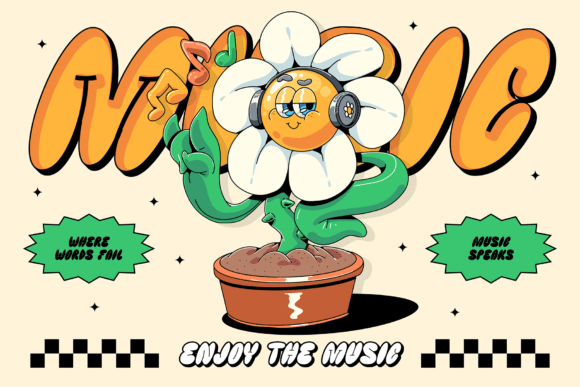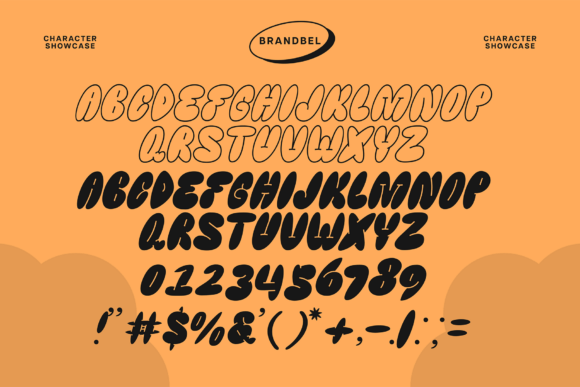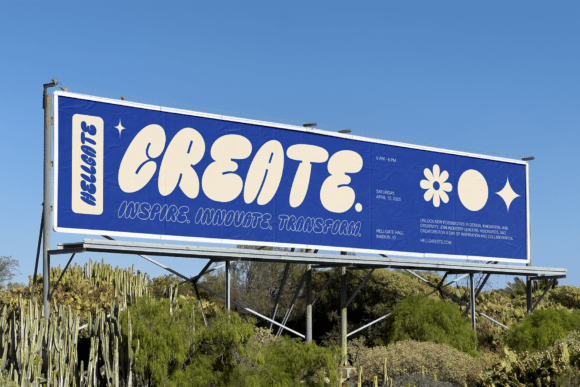
Introducing Brandbel Font: Add a Splash of Fun to Your Designs
Are you tired of using the same old fonts in your designs? Do you want to add a playful touch that sets your work apart? Look no further than the Brandbel Bubble Typeface! This vibrant and buoyant font is designed to inject a playful charm into any design, making it perfect for crafters, designers, and anyone looking to add some whimsy to their projects.
The Power of Playfulness: Why Brandbel Bubble Typeface Stands Out
Brandbel Bubble font is more than just a font – it’s an experience. Its bubbly personality can turn any text into a visual treat, making it perfect for designs that require a carefree and jovial aesthetic. Whether you’re working on a children’s book, a party invitation, or a social media post, Brandbel Bubble Typeface is sure to bring a smile to your audience’s face.
Effortless Customization: Make it Your Own
One of the best things about Brandbel Bubble Typeface is how easy it is to amend in terms of text and color. With just a few clicks, you can change the text to fit your needs and adjust the color to match your brand’s palette. This font is designed to be flexible and versatile, making it perfect for a wide range of design projects.
High-Quality Render: Consistency Across All Conditions
Brandbel Bubble font boasts a high-quality render, ensuring that the spark it brings to your designs remains undiminished in any condition. Whether you’re viewing your design on a high-resolution screen or printing it out on paper, Brandbel Bubble Typeface looks amazing. Its crisp lines and smooth curves make it perfect for both digital and print designs.
Crafted to Elevate Your Designs
Brandbel Bubble Typeface is crafted to elevate your designs and add a touch of whimsy. Its playful charm makes it perfect for designs that require a carefree and jovial aesthetic. Whether you’re a professional designer or a crafter, this font is sure to inspire you to create something amazing.
Brandbel Bubble Typeface is a must-have for designers and crafters who want to add a playful touch to their work. Its versatility and flexibility make it perfect for a wide range of design projects, from children’s books to party invitations. With Brandbel Bubble Typeface, you can:
- Create eye-catching social media posts that stand out from the crowd
- Design party invitations that set the tone for a fun and playful celebration
- Develop children’s books that are both fun and educational
- Add a playful touch to your branding and marketing materials
Key Features of Brandbel Bubble Typeface
Here are some of the key features that make Brandbel Bubble Typeface stand out:
- Vibrant and buoyant design that adds a playful charm to any text
- Effortlessly customizable in terms of text and color
- High-quality render that ensures consistency across all conditions
- Perfect for designs that require a carefree and jovial aesthetic
- Versatile and flexible, making it perfect for a wide range of design projects
| Font Name | Brandbel Font |
| Author | febryan.satria1 |
In conclusion, Brandbel Bubble Typeface is a must-have for designers and crafters who want to add a playful touch to their work. Its vibrant and buoyant design, effortless customization, and high-quality render make it perfect for a wide range of design projects. Whether you’re working on a children’s book, a party invitation, or a social media post, Brandbel Bubble Typeface is sure to bring a smile to your audience’s face. So why wait? Download Brandbel Bubble Typeface today and experience a splash of fun in your designs!